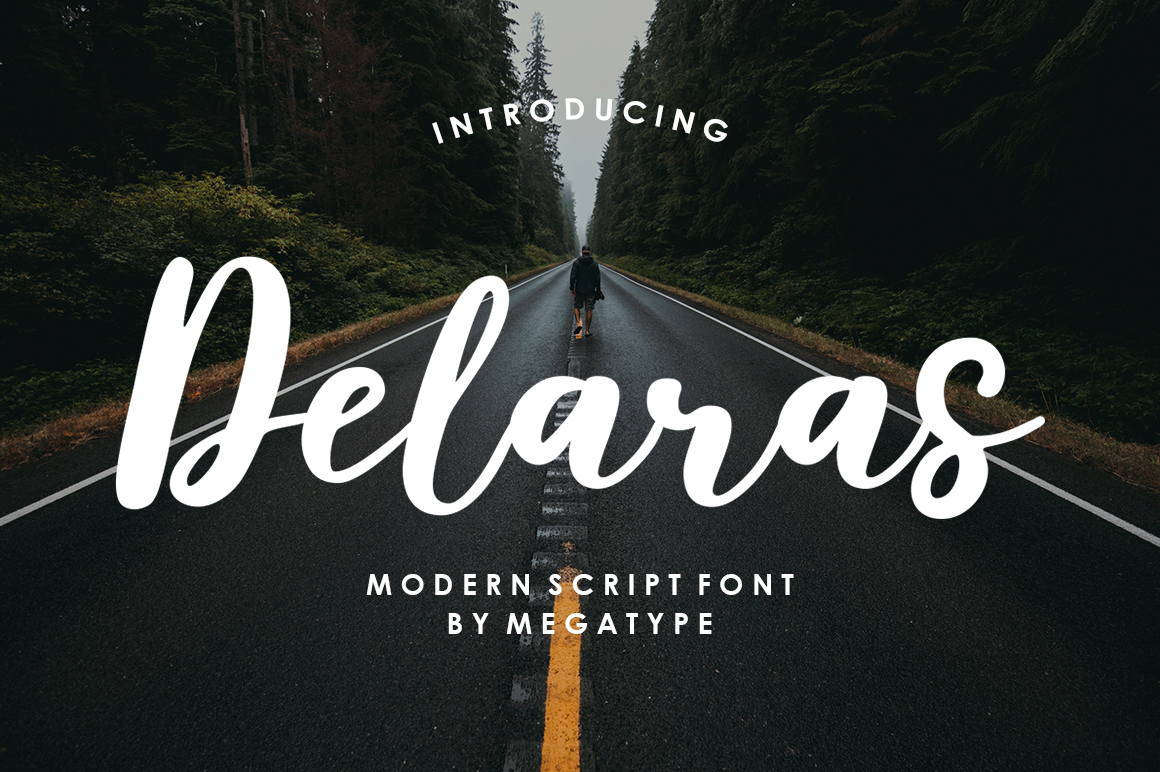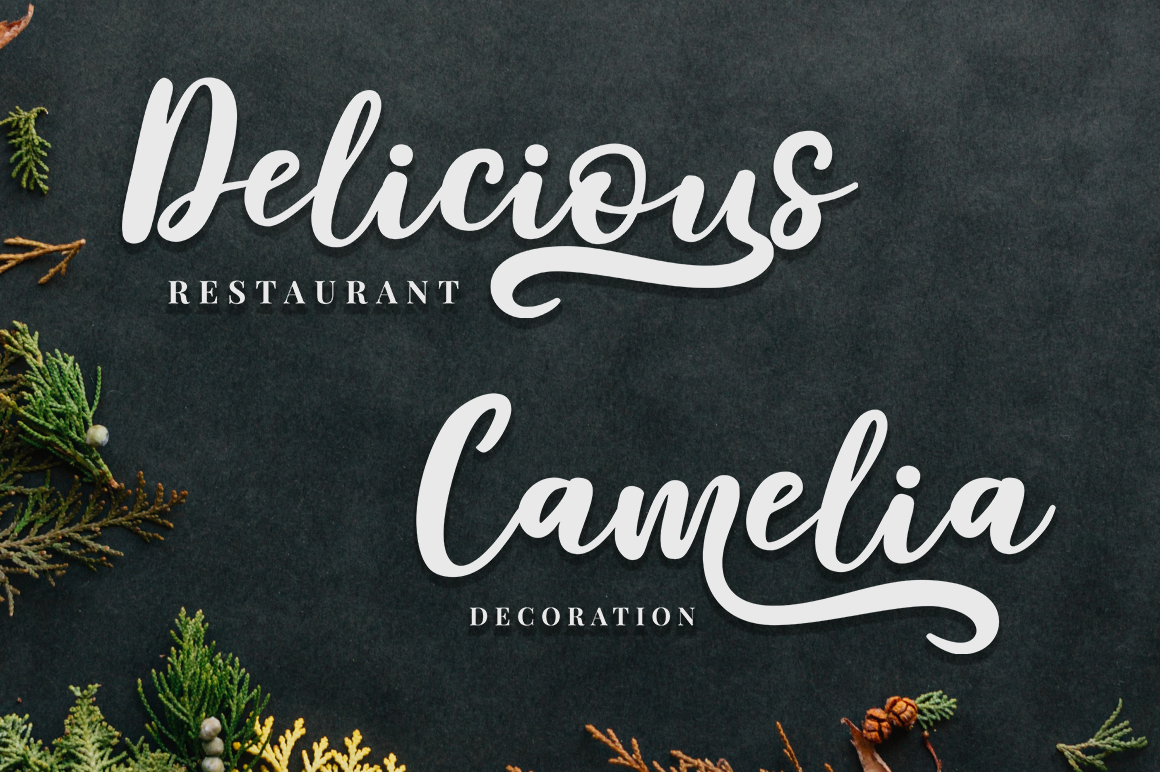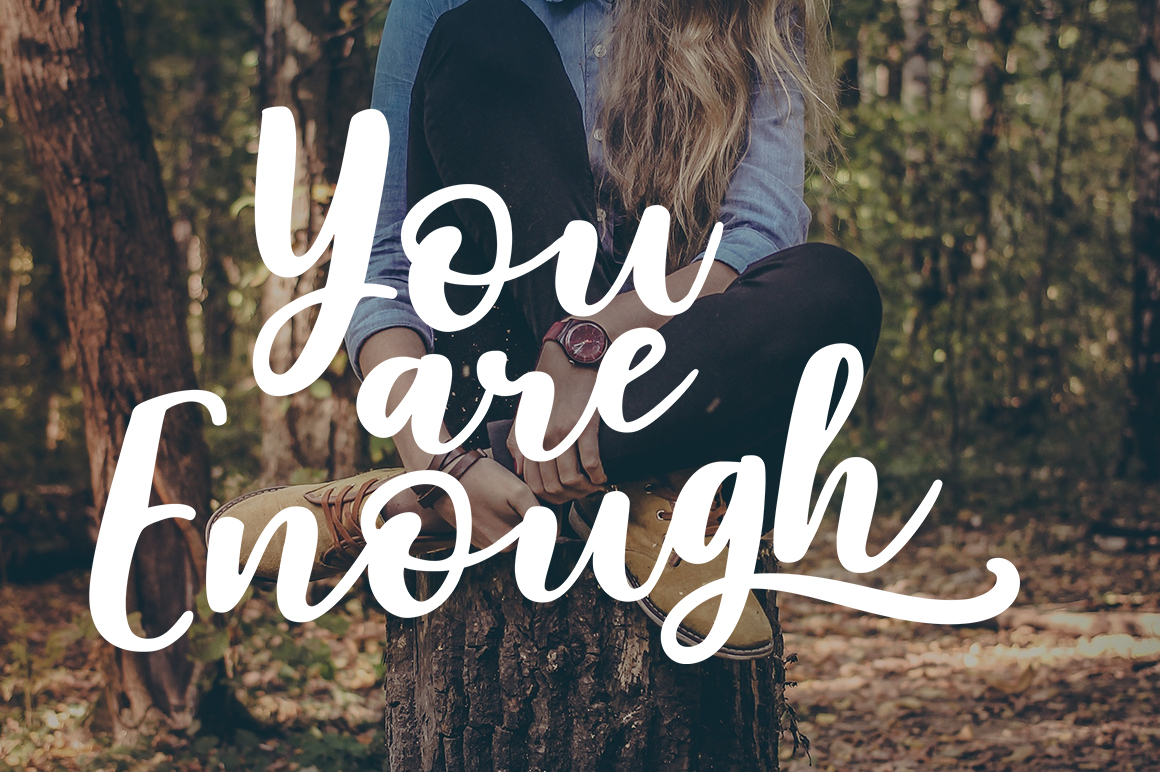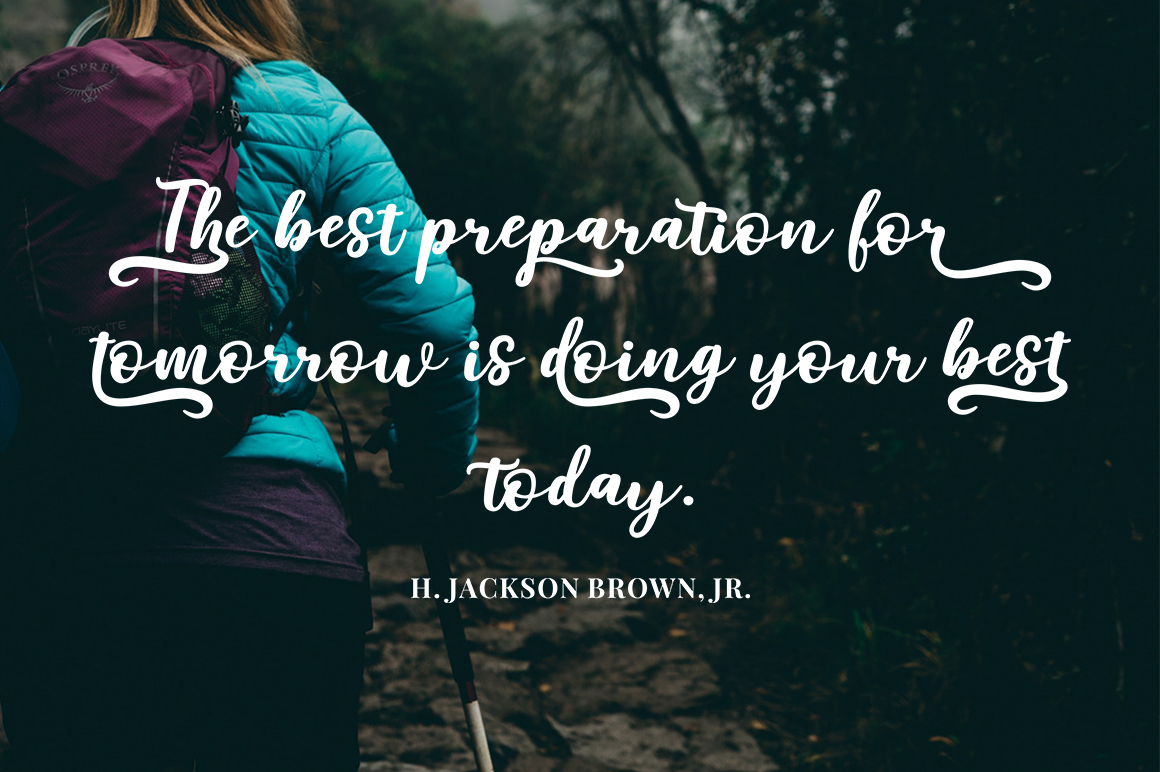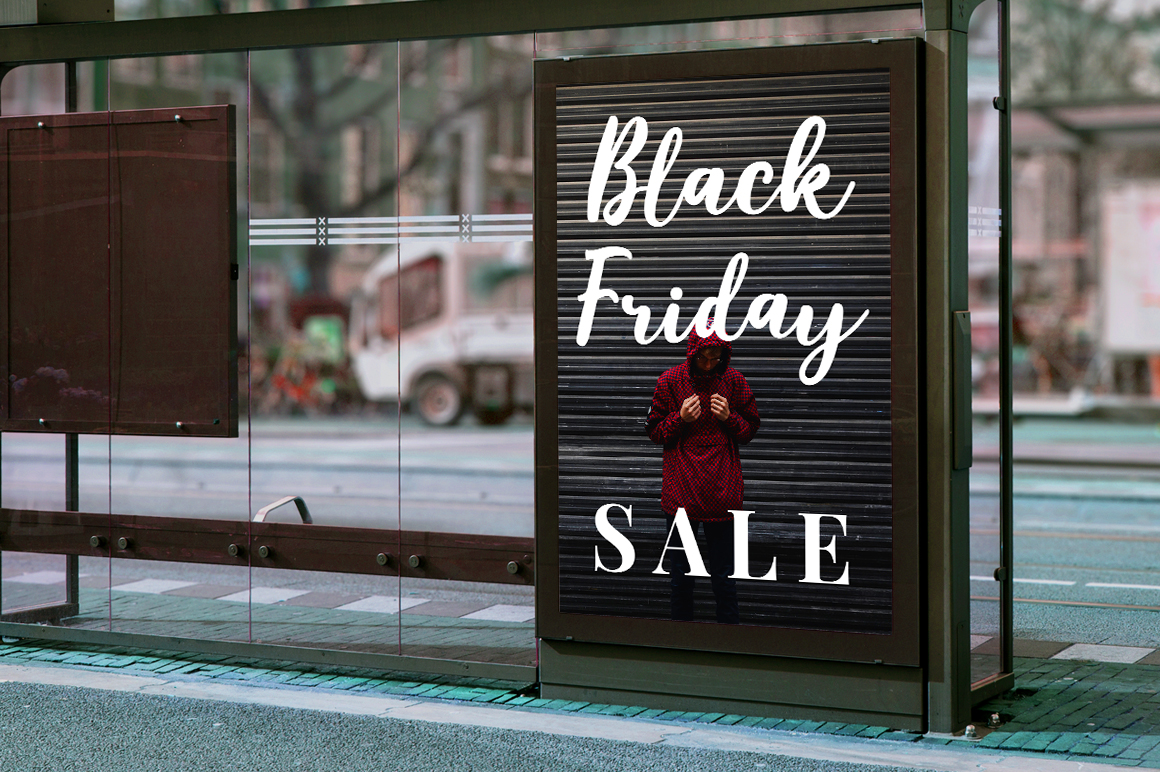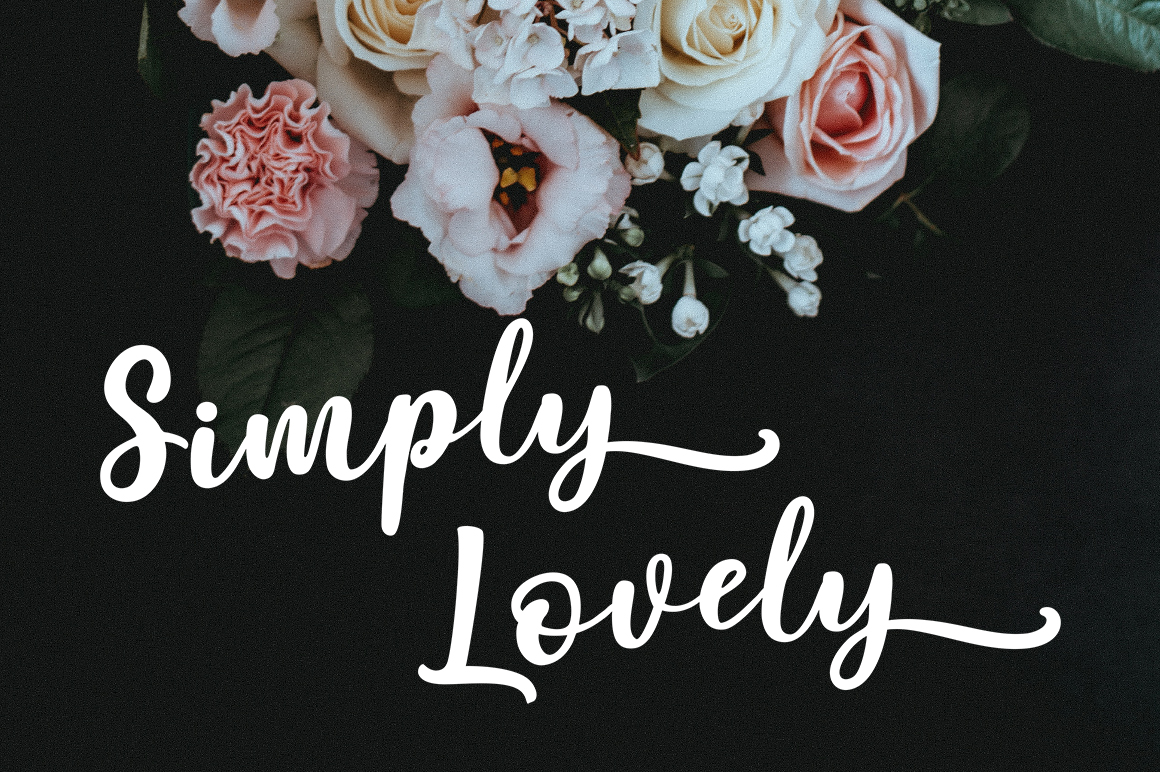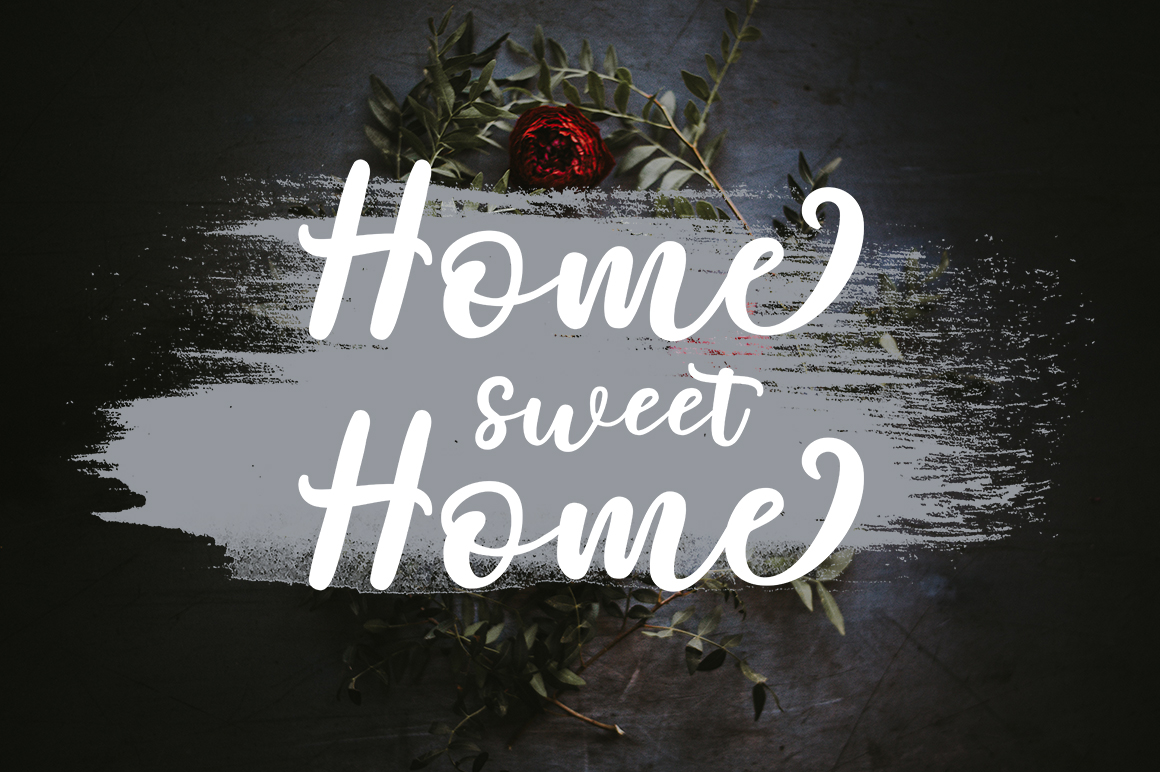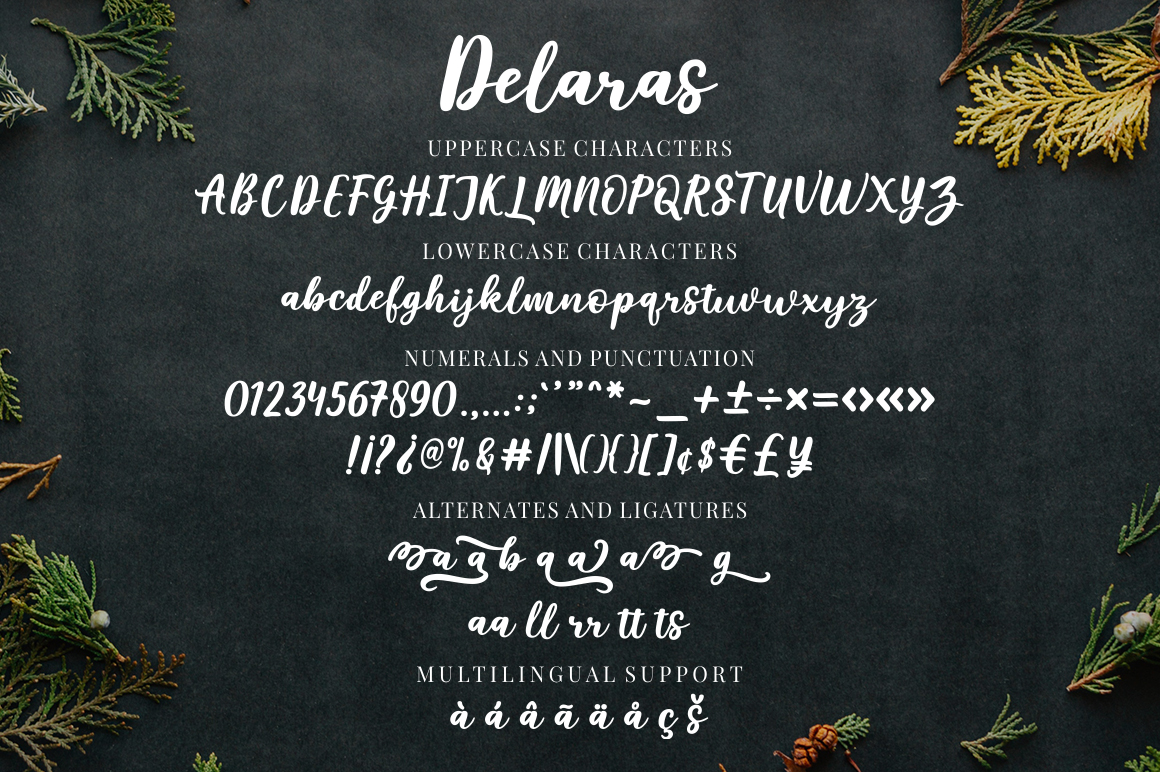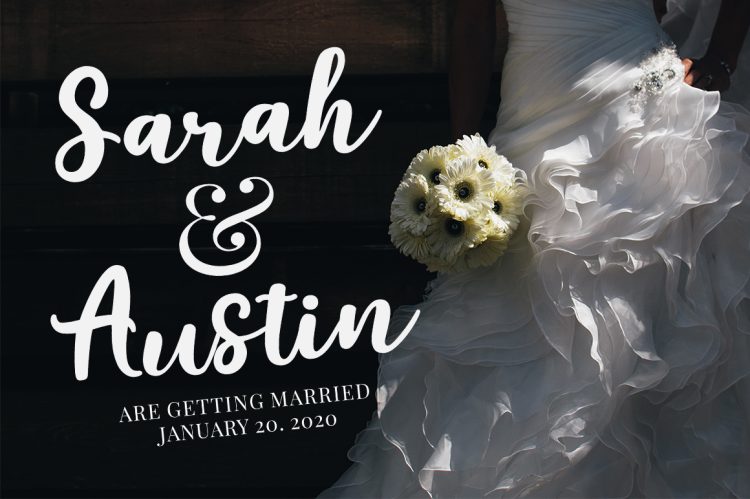
Introducing Delaras is a modern script font created with a brush and ink, bold and irregular baseline. Contains a complete set of lowercase, uppercase, alternates, ligatures, punctuation, numbers, and multilingual support. Get some inspiration from the preview above.
Delaras is perfect for use in watercolor design or lettering style bold hand, such as blog header, branding, t-shirt, weddings, social media, product design, stationery, advertising, apparel, cover books, business cards, greeting cards, branding, merchandise, invitations and handmade quotes and more.
Delaras features OpenType stylistic alternates, ligatures and International support for most Western Languages is included. To enable the OpenType Stylistic alternates, you need a program that supports OpenType features such as Adobe Illustrator CS, Adobe Indesign & CorelDraw X6-X7, Microsoft Word 2010 or later versions.